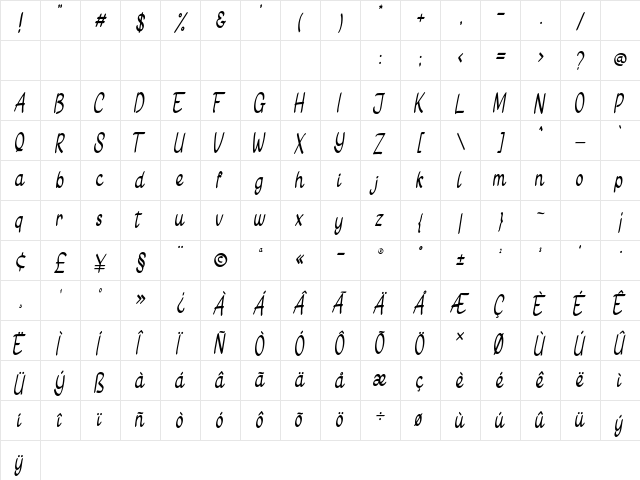
Gietha Script Regular
Design Context for Gietha Script Typeface
Gietha Script brings a calligraphic fluidity to the page — its connecting strokes and expressive curves give it an unmistakably human quality.
Font Pairing: Combine Gietha Script with a simple geometric sans for maximum contrast — the tension between flowing curves and clean structure is a classic typographic pairing.
Pro Tip: Use Gietha Script for short runs of text — names, titles, or taglines. Extended body copy in script faces tires the eye quickly.